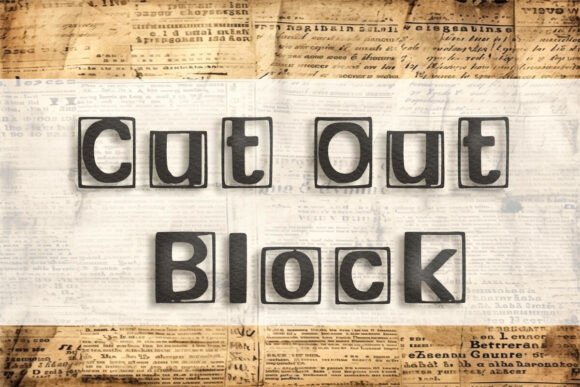
Unleashing Creativity with Cut Out Block Font
I still remember the design project that led me to discover Cut Out Block Font. I was working on a branding campaign for a local craft fair, and I needed a font that would stand out on stickers, posters, and social media. The client wanted something bold, yet playful, and I was determined to deliver. After hours of scouring font libraries, I stumbled upon Cut Out Block Font, and it was love at first sight! ✨
The distinct style of Cut Out Block Font immediately caught my attention. Its bold silhouette and unconventional design make it perfect for unleashing your creativity. Whether it’s adorning a beloved t-shirt, embellishing your favourite glossy magazine, or adding a personal touch to greeting cards, this font leaves a lasting impression.
A Personal Review of Cut Out Block Font
- ✨ Unique Design: Cut Out Block Font boasts a one-of-a-kind design that instantly grabs attention.
- ✅ Versatility: This font thrives in print mediums like stickers and posters, yet effortlessly translates into the digital realm, accentuating SVG files, Cricut projects, and social media content.
- 💡 Creative Freedom: With Cut Out Block Font, you can experiment with various design styles, from minimalist to bold and playful.
While Cut Out Block Font is an excellent choice for many design projects, there are a few things to keep in mind:
- ⚠️ Legibility at Small Sizes: Due to its bold design, Cut Out Block Font may become less legible at very small font sizes. It’s best used at larger sizes to maximize impact.
- 🤔 Limited Formality: This font is best suited for creative, playful designs. It may not be the best fit for formal or professional projects that require a more traditional look.
The Inspiration Behind Cut Out Block Font
Cut Out Block Font was designed with the intention of breaking free from traditional typography. Its creator drew inspiration from urban landscapes, graffiti, and street art. The goal was to craft a font that would embody the spirit of creativity and self-expression.
| Font Name | Cut out Block Font |
| Author | Heidi Vargas-Smith |
| What makes Cut Out Block Font unique? | Its bold, block-like design and unconventional style set it apart from more traditional fonts. |
| Is Cut Out Block Font suitable for digital use? | Absolutely! Cut Out Block Font works well in digital formats, including SVG files, Cricut projects, and social media content. |
| Can I use Cut Out Block Font for print projects? | Yes, Cut Out Block Font is ideal for print projects like stickers, posters, and greeting cards. |
With Cut Out Block Font, you can harness the power of creativity and let your designs tell their own unique story. Stand out from the crowd and make a lasting impression with this bold, unconventional typeface.